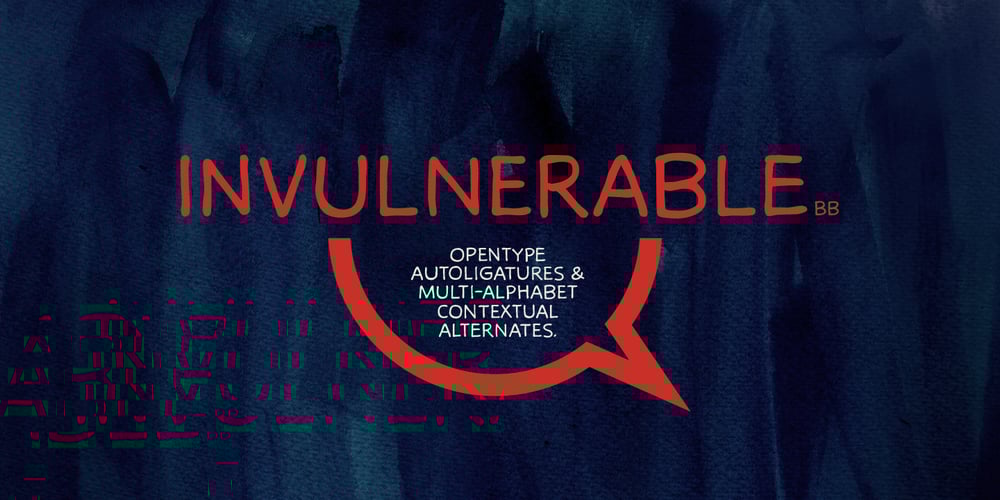
Invulnerable BB Font Family was designed by Nate Piekos and published by Blambot. Invulnerable BB contains 4 styles and family package options. Clean and clear are the buzzwords for Invulnerable BB. A comic book font with no fuss. The opentype version includes contextual alternates to create multiple versions of letters, numbers and punctuation, as you type. Errant serif-I correction (in comics, only personal pronouns have the serf-I), also, type up to six consecutive, identical letters, and get a bouncy baseline.